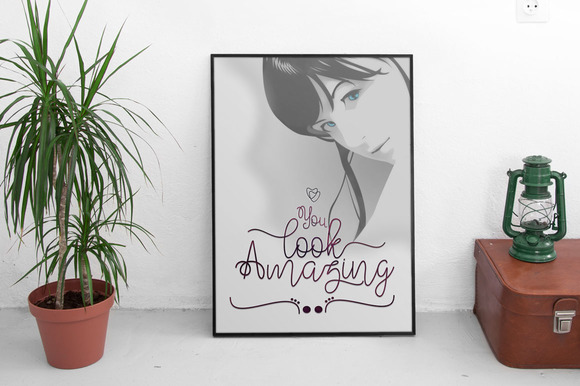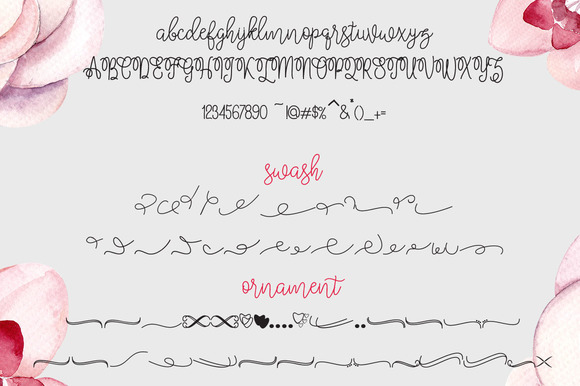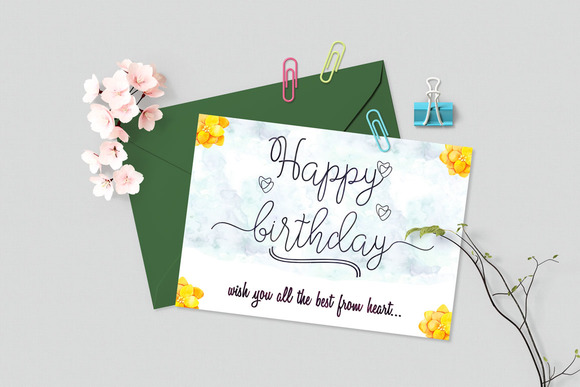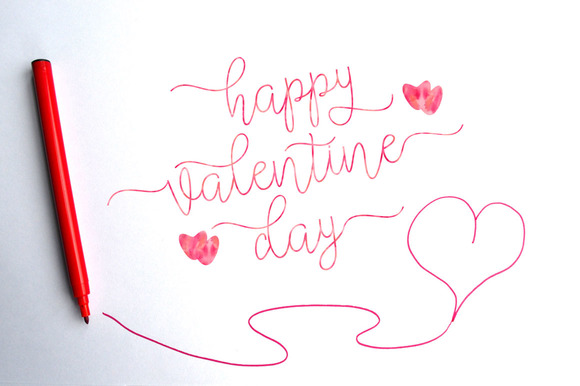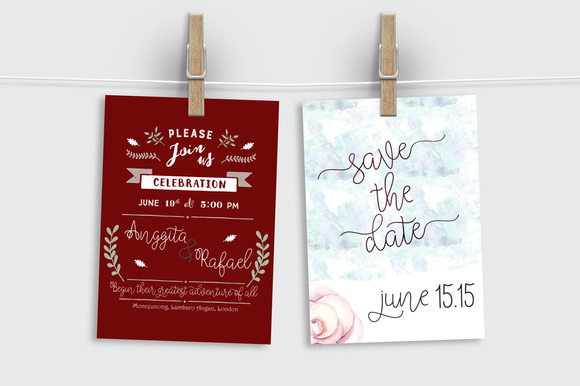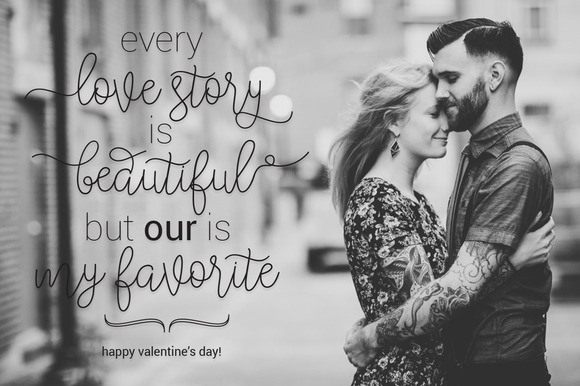
Unleashing the Art of Modern Calligraphy: Introducing Bralyn Font
Have you ever found yourself scribbling in the margins of a notebook, lost in the rhythm of your own handwriting? That’s where the magic happens, and creativity flows freely. For designers, calligraphy fonts like Bralyn Monoline Script can evoke a similar sense of wonder and possibility. This modern script font is more than just a typeface – it’s a tool to add elegance and sophistication to your work.
Bralyn Font is designed to be versatile, suitable for a wide range of applications, from headings and logos to invitations, t-shirts, and book covers. Its classic touch and refined lines make it an invaluable addition to any designer’s toolkit. With Bralyn Font, you can take your designs to the next level, adding a touch of sophistication and style that’s sure to impress.
- Unique Characteristics: Bralyn Font features a unique blend of modern and classic elements, making it an excellent choice for designers seeking a distinctive look. Its clean lines, geometric shapes, and subtle texture create a sophisticated aesthetic.
- Font Weight and Style: Bralyn Font offers multiple font weights (Regular, Medium, Bold, and Extra Bold) and styles (Italic and Oblique), allowing designers to achieve a wide range of visual effects.
Bralyn Font Review
As a designer, I’ve had the chance to work with the Bralyn Font, and I must say it’s an interesting choice. Here are my thoughts.
- ✨ Unique aesthetic: Bralyn Font has a distinct, hand-drawn feel that can add a touch of personality to your designs.
- ✨ Versatility: This font is suitable for a wide range of applications, from logos and branding to body text and signage.
- ✨ Large character set: Bralyn Font comes with a comprehensive set of characters, including punctuation, numerals, and special symbols.
- ⚠️ Limited legibility: In smaller font sizes or when used in complex compositions, Bralyn Font can become difficult to read.
- ⚠️ Distorted proportions: Some characters in the font may appear uneven or stretched, which can be distracting.
Overall impression:
While Bralyn Font has its charm, its limitations make it a less-than-ideal choice for body text or critical information. However, when used in creative, visual contexts, it can be a great addition to your design toolbox.
The Bralyn Font is commonly used for:
1. Titles and headings.
2. Branding and logos.
3. Marketing materials (e.g., flyers, brochures, etc.).
4. Digital products (e.g., ebooks, courses, etc.).